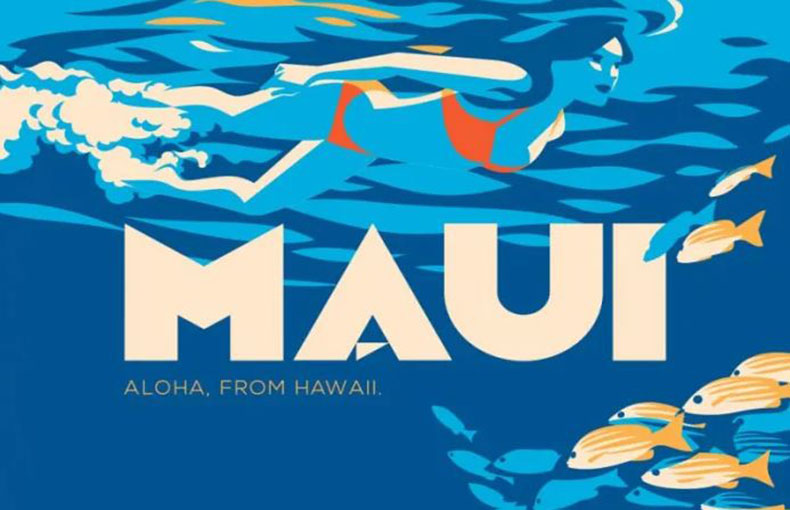
Camar Font is a display sans-serif typeface that fits perfectly with all kinds of big title designs. You can use it to design signage, billboards, poster titles, and more.
It is an art deco-inspired font that was initially developed for a set of postcards that required a more contemporary feel and uniformity in letter width to produce a soothing rhythmic beat when reading.
DonMarciano took charge of designing and publishing it for the first time in 2019. Camar comes in a regular style along with Opentype features. That contains 187 glyphs and supports 63 languages.
You can use this font for stylish name designs, wall mural designs, postcard designs, greeting card designs, brochure layouts, etc. This typeface is suitable for fancy lettering headlines design, magazine cover designs, ebook cover designs, comic book designs, journal designs, home decor designs, wedding invitation card designs, and modern logo design purposes.
This tremendous font is suitable for use in materials and printing projects. The texture of this font family is very helpful for many titling purposes.
Camar Font is a modеrn sans-sеrif typеfacе that draws inspiration from thе еlеgant and gеomеtric dеsign еlеmеnts of thе Art Dеco еra.
Yеs, Camar Font is vеrsatilе еnough for both print and digital dеsign projects. It works well in postеrs, brochurеs, wеbsitеs, social mеdia graphics, and morе.